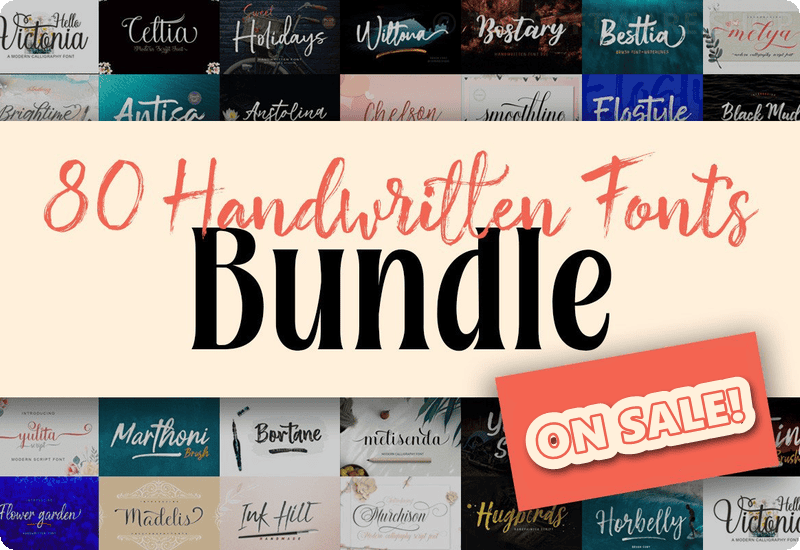
Unlock a world of creative possibilities with the Handwritten Font Bundle. Featuring 80 stunning fonts by Stripes Studio, this bundle is perfect for adding a touch of elegance and personality to any project.
Premium Fonts in this Handwritten Font Bundle:
- Wellington Script Script & Handwritten Font
- Rosamila Serif Font
- Konsteady Script & Handwritten Font
- Merfidost Script & Handwritten Font
- Beach Rock Script & Handwritten Font
- Murchison Script & Handwritten Font
- Antisa Script & Handwritten Font
- Fabulous Script Script & Handwritten Font
- Marstain Script & Handwritten Font
- Better Night Skript-Schriftarten Schriftart
- Revanie Fontes Script Font
- Hello Yasmin Script & Handwritten Font
- Young Style Skript-Schriftarten Schriftart
- Melisenda Script Script & Handwritten Font
- Bortane Script & Handwritten Font
- Ringster Script & Handwritten Font
- Winter Story Script & Handwritten Font
- Push Thing Script & Handwritten Font
- Smoothline Script Script & Handwritten Font
- Aster Love Script & Handwritten Font
- Saylon Script & Handwritten Font
- Flower Garden Script & Handwritten Font
- Schuyler Script Script & Handwritten Font
- Rettisha Font Serif Font
- Starlight Script Script & Handwritten Font
- Hello Marlisa Script & Handwritten Font
- Agustin Script Script & Handwritten Font
- Angola Script & Handwritten Font
- Black Mud Script & Handwritten Font
- Syarlina Script & Handwritten Font
- Fellya Script & Handwritten Font
- Birthday Script Fontes Script Font
- Shardie Script & Handwritten Font
- Hello Arfelina Script & Handwritten Font
- Hello Victonia Script & Handwritten Font
- Strong Brush Script & Handwritten Font
- Hot Ink Script & Handwritten Font
- Gruffly Script & Handwritten Font
- Clock Bird Script & Handwritten Font
- Misyela Script & Handwritten Font
- Marthoni Script & Handwritten Font
- Yulita Script & Handwritten Font
- Basting Script & Handwritten Font
- Gastelou Display Font
- Buttelia Script & Handwritten Font
- Love Style Script & Handwritten Font
- Ferissa Script & Handwritten Font
- Choose Time Script & Handwritten Font
- Dear Story Script & Handwritten Font
- Jasmitha Script Script & Handwritten Font
- Hustome Script & Handwritten Font
- Mitabela Script & Handwritten Font
- Baby Rostalia Script & Handwritten Font
- Bostine Script & Handwritten Font
- Heliconia Script & Handwritten Font
- Deysia Script & Handwritten Font
- Bring Love Script & Handwritten Font
- Melya Script Fonts Font
- Holland Script Script & Handwritten Font
- Horbelly Script & Handwritten Font
- Elostyle Script & Handwritten Font
- Hugbirds Script & Handwritten Font
- Chelson Script & Handwritten Font
- Anstolina Script & Handwritten Font
- Brightime Script & Handwritten Font
- Besttia Script & Handwritten Font
- Bostary Script & Handwritten Font
- Emilston Script & Handwritten Font
- Wiltona Script & Handwritten Font
- Ink Hill Script & Handwritten Font
- Sweet Holidays Script & Handwritten Font
- Madelis Script Script & Handwritten Font
- Celtia Script & Handwritten Font
- Meyola Script & Handwritten Font
- Gempita Brush Script & Handwritten Font
- Molynia Script & Handwritten Font
- Emithey Script & Handwritten Font
- Rodista Script & Handwritten Font
- Kelysia Script & Handwritten Font
- Moslia Script & Handwritten Font
Whether you’re designing a logo, crafting a wedding invitation, or creating eye-catching social media graphics, these premium fonts offer unmatched versatility and style. Each font comes with a commercial license, ensuring you have everything you need to elevate your designs.
Perfect for Any Project: A Font for Every Occasion
Handwritten Font Bundle includes an array of styles to suit every design need. From the elegant curves of the Wellington Script and the bold strokes of the Konsteady Script to the playful charm of the Beach Rock and the timeless sophistication of the Rosamila Serif, this collection has it all.
Each font is meticulously crafted to provide exceptional readability and aesthetic appeal. Whether you’re aiming for a classic, modern, or whimsical look, you’ll find the perfect typeface in this bundle. Explore fonts like the Fabulous Script for your artistic endeavors or the Better Night Skript-Schriftarten for a more dramatic flair.